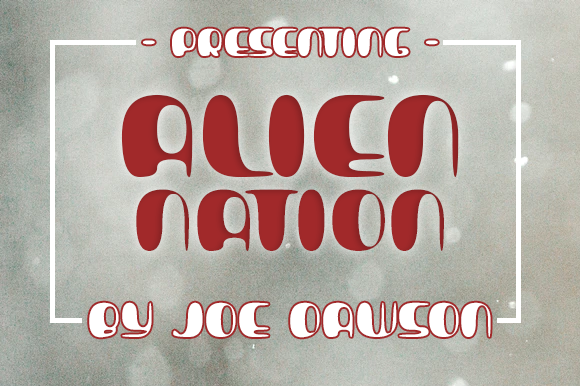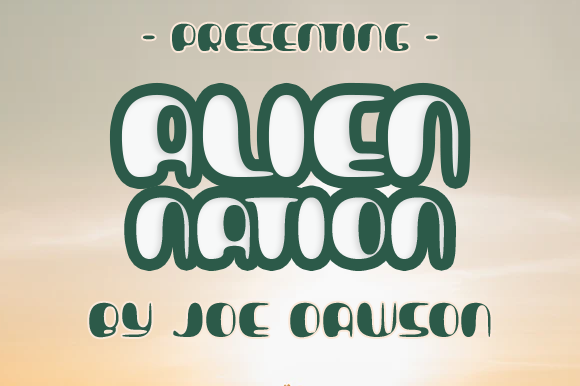
The Cosmic Connection of Alien Nation Font
Have you ever found yourself lost in a sea of blank canvas, staring at a blank page, and suddenly, a spark of creativity strikes? The world around you comes alive with vibrant colors, and the words begin to flow effortlessly. For designers, this moment is what drives us to create something truly unique and special. And that’s exactly where the Alien Nation Font comes in – a retro styled display font that’s out of this world.
This font is a game-changer for anyone looking to elevate their creative projects, whether it’s a Instagram post, a calligraphy script, or a DIY masterpiece. With its otherworldly charm, the Alien Nation Font is sure to transport your designs to a new galaxy of possibilities. For designers, it’s a valuable asset that can add an extra layer of sophistication and personality to any project.
Alien Nation Font Key Features
- Unique Characteristics: The Alien Nation Font features a futuristic, extraterrestrial design with unique letterforms, making it perfect for science fiction, fantasy, and futuristic-themed projects.
Alien Nation Font Review
I recently had the chance to dive into the Alien Nation Font, and I must say, it’s an interesting addition to any design project. ✨ One of the things that works well for this font is its unique blend of futuristic and retro elements. It’s a great choice for anyone looking to add a bit of sci-fi flair to their design.
Another aspect that I appreciate is its versatility. ✨ The font comes in a range of weights, from light to bold, making it suitable for a variety of applications, from headings to body text.
- Unique blend of futuristic and retro elements
- Great for adding sci-fi flair to designs
- Versatile, with a range of weights available
- May not be suitable for all design projects, particularly those with a more minimalist aesthetic
- Some characters may not be as well-designed as others
- ⚠️ Limited language support, which may be a concern for designers working with non-English text
Overall, I’d say the Alien Nation Font is a solid choice for designers looking to add a bit of flair to their work. While it may have some limitations, its unique style and versatility make it a great addition to any design project.
Alien Nation Font: A Practical Application Guide
For best results, pair the Alien Nation Font with bold, bright colors and striking graphics. This font is perfect for sci-fi, fantasy, and futuristic designs. Experiment with different font sizes and styles to create visual interest.
The Alien Nation Font is ideal for:
- Sci-fi movie posters and trailers
- Futuristic video game titles and menus
- Space-themed logos and branding
- Comic book covers and interior art